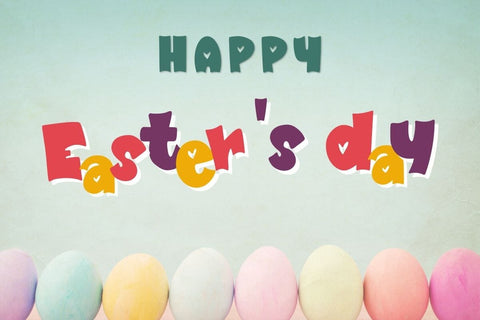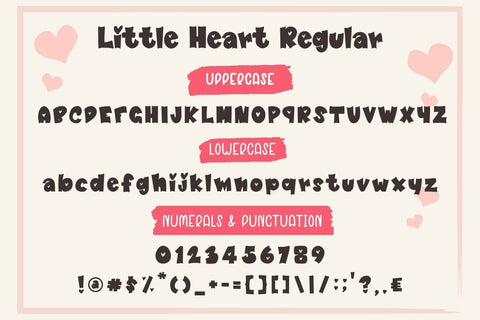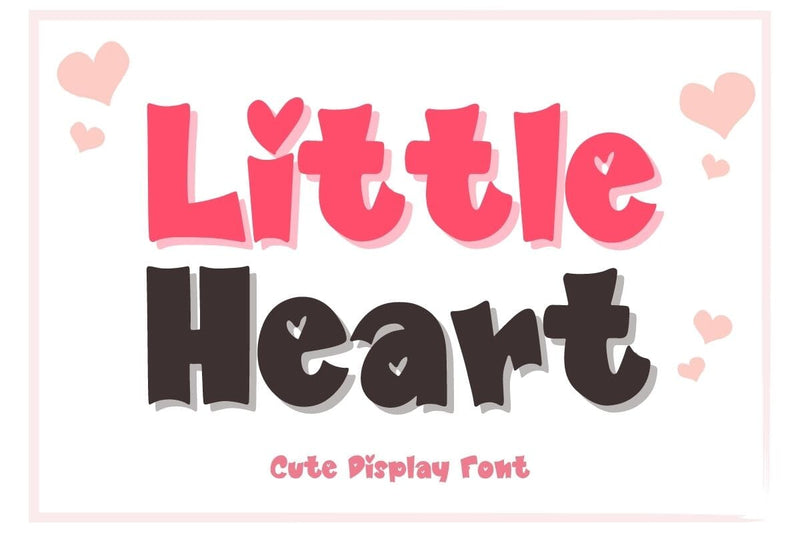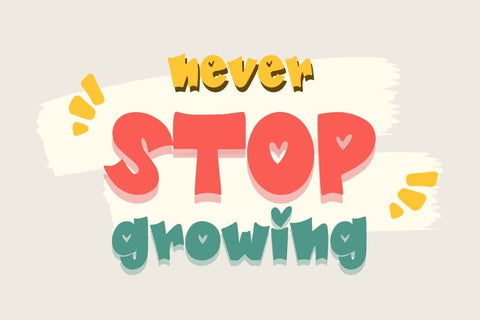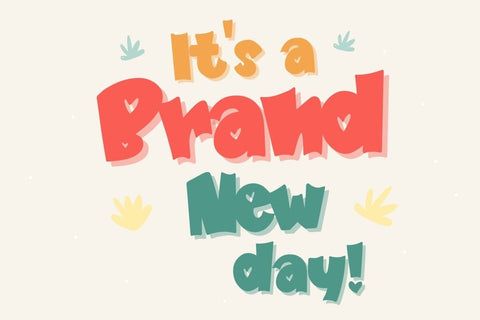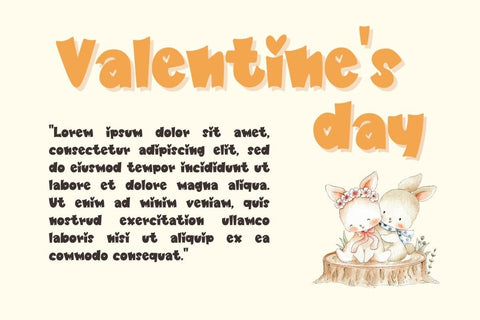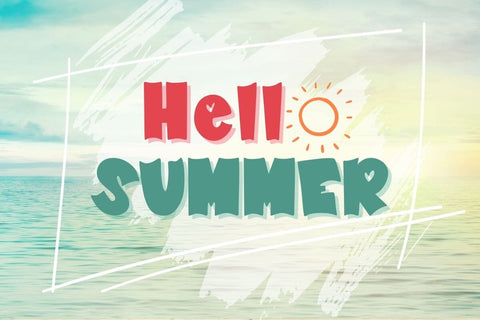
Little Heart – Cute Valentine Display Font
Little Heart is a cute and playful display font featuring rounded letterforms and tiny heart details. Designed to feel cheerful, friendly, and full of love, this font is perfect for Valentine’s Day designs and everyday cute projects.
With its bold shapes and sweet heart accents, Little Heart adds a fun and lovable touch to both digital and print designs.
Little Heart works beautifully for:
- Valentine’s Day designs & love quotes
- Kids projects, classroom materials & worksheets
- Birthday, Easter & seasonal designs
- Stickers, sublimation, mugs, pillows & t-shirts
- Cricut & Silhouette craft projects
- Social media posts, posters & greeting cards